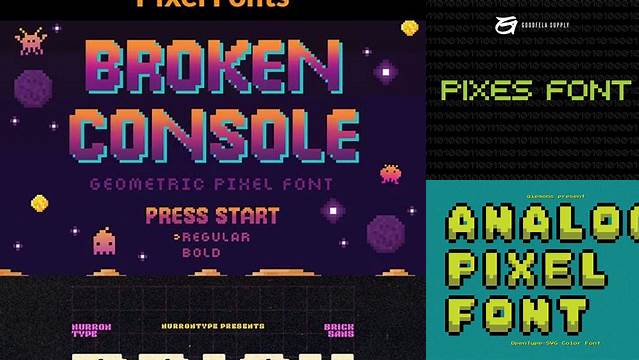
Best Pixel Fonts: Top Reddit Recommendations
Are you on the hunt for the best pixel fonts, guys? You've come to the right place! Whether you're a game developer aiming for that authentic 8-bit aesthetic, a graphic designer with a love for retro vibes, or just a typography enthusiast exploring the world of pixelated goodness, finding the perfect font can be a game-changer. And where better to start your search than on Reddit, the internet's front page, where passionate communities gather to share their expertise and discoveries? In this guide, we'll dive deep into the world of pixel fonts, drawing inspiration from Reddit's vibrant discussions and recommendations. We'll explore what makes a pixel font truly shine, highlight some of the top contenders favored by Redditors, and offer tips on how to choose the ideal font for your project. So, buckle up and get ready to pixelate your text!
What Makes a Great Pixel Font?
Before we jump into the Reddit recommendations, let's first understand what makes a pixel font truly exceptional. It's not just about making letters look blocky; it's about achieving clarity, readability, and visual appeal within the constraints of a limited pixel grid. A great pixel font, first and foremost, needs to be legible. Even at small sizes, each character should be easily distinguishable from the others. This requires careful attention to the font's design, ensuring that curves are smooth, lines are crisp, and counters (the enclosed spaces within letters like 'a' and 'o') are adequately sized. Imagine trying to read a wall of text in a pixel font where every letter blurs into the next – not a fun experience! Legibility is key for any pixel font worth its salt.
Beyond legibility, a truly standout pixel font possesses a distinct personality. This is where the artistry of the font designer comes into play. Different pixel fonts can evoke different feelings and moods. Some are bold and assertive, perfect for titles and headlines, while others are delicate and refined, suitable for body text or UI elements. The font's personality can be conveyed through various design choices, such as the thickness of the strokes, the shape of the serifs (or the lack thereof), and the overall proportions of the letters. A font with a strong personality can instantly elevate the visual impact of your project, adding a touch of character and charm. When selecting a pixel font, consider the overall tone and message you want to convey, and choose a font that complements your vision.
Consistency is another crucial factor. A well-designed pixel font should maintain a consistent visual style across all its characters, from the uppercase letters to the lowercase letters, numerals, and punctuation marks. This means that the thickness of the strokes, the spacing between the letters, and the overall level of detail should be uniform throughout the font. Inconsistency can be jarring and distracting, making the text appear disjointed and unprofessional. A consistent pixel font creates a sense of visual harmony, allowing the reader to focus on the content rather than the typography itself. When evaluating a pixel font, pay close attention to the details and ensure that all the characters work together seamlessly.
Top Pixel Fonts Recommended on Reddit
Reddit, with its diverse communities and passionate users, is a treasure trove of recommendations for just about anything, and pixel fonts are no exception. Let's explore some of the top pixel fonts that Redditors rave about, covering a range of styles and applications. These fonts have earned their stripes in the pixelated arena, gaining popularity for their readability, aesthetic appeal, and overall quality.
One font that frequently surfaces in Reddit discussions is Press Start 2P. This font, inspired by the classic arcade game era, is a bold and instantly recognizable choice. Its chunky, pixelated letters exude a retro charm that's perfect for game titles, headlines, and anything that needs a touch of nostalgic flair. Redditors often praise Press Start 2P for its strong personality and excellent readability, even at small sizes. It's a go-to font for many indie game developers and graphic designers looking to capture the essence of 8-bit gaming. If you're aiming for that authentic retro vibe, Press Start 2P is definitely worth checking out. Its distinctive style and widespread popularity make it a classic choice in the pixel font world.
Another Reddit favorite is VT323. This monospace font, designed to emulate the text output of vintage computer terminals, has a unique and captivating aesthetic. Its characters are tall and narrow, with a distinct pixelated texture that evokes the era of early computing. VT323 is often recommended for user interfaces, code editors, and other applications where a monospace font is desired. Redditors appreciate VT323 for its cleanliness and legibility, making it a practical choice for text-heavy displays. Its understated elegance and retro charm make it a versatile font that can be used in a variety of projects. If you're looking for a font that combines functionality with a touch of vintage flair, VT323 is a solid option.
For those seeking a more versatile pixel font, Perfect DOS VGA 437 is a popular choice on Reddit. This font is a faithful recreation of the character set used in the IBM VGA text mode, a standard display mode for DOS-based computers. Perfect DOS VGA 437 is known for its exceptional legibility and wide range of characters, including symbols, accented letters, and even box-drawing characters. Redditors often recommend this font for emulators, retro-themed websites, and other projects where a complete and highly readable character set is required. Its classic design and comprehensive character set make it a valuable asset for any pixel font enthusiast. Whether you're recreating a vintage computing experience or simply need a reliable and versatile pixel font, Perfect DOS VGA 437 is a great choice.
These are just a few of the many pixel fonts that Redditors recommend. Other notable mentions include 04b_03, a clean and highly readable font; Atari Classic, which captures the iconic look of Atari games; and Minimal 5x7, a minimalist font designed for maximum legibility at very small sizes. Exploring Reddit threads and forums dedicated to typography and pixel art can unearth even more hidden gems and niche favorites. Remember, the best pixel font for your project will depend on your specific needs and aesthetic preferences. Don't be afraid to experiment with different fonts and find the one that truly resonates with your vision. So, go ahead and explore these Reddit-approved fonts, and let your creativity flow!
So, there you have it, guys! A Reddit-inspired journey into the world of best pixel fonts. We've explored what makes a great pixel font, highlighted some top contenders recommended by Redditors, and offered tips on choosing the right font for your project. Remember, the perfect pixel font is out there, waiting to be discovered. Whether you're crafting a retro game, designing a pixel-perfect website, or simply expressing your love for vintage typography, the right font can make all the difference. So, embrace the pixelated aesthetic, explore the diverse world of pixel fonts, and let your creativity shine. Happy designing!